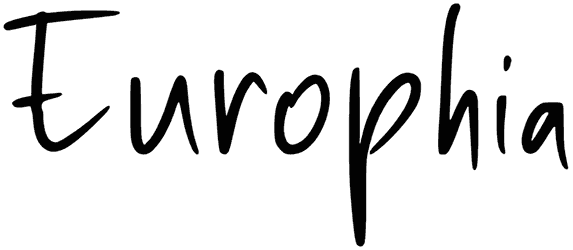
Europhia Font
Here is Europhia, a subtle handwritten font offering a casual, modern touch with a pleasant appearance for achieving the best outcome. It’s also creative and unique, which helps to bring those novel thoughts inside your head without concern.
This font is easy to read, functional, and can be applied in various areas of design, such as product packaging, website headers, comic books, greeting cards, photo overlays, etc.